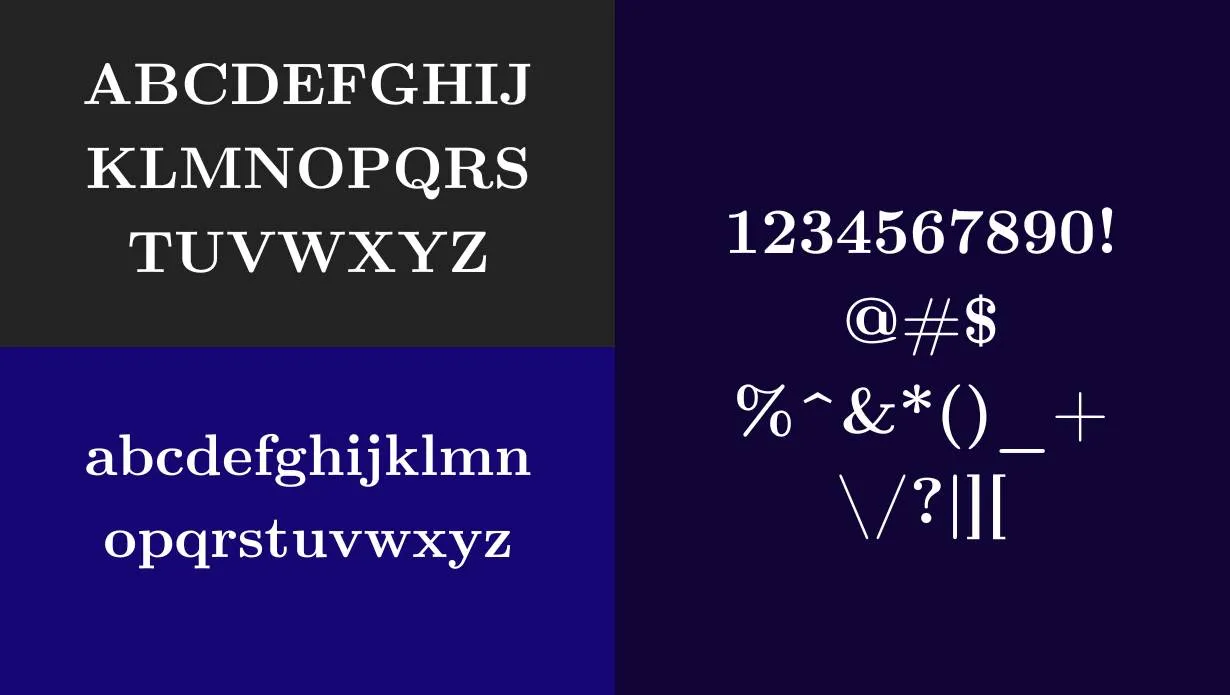
Cmu Serif Font is a classic and elegant typeface, often chosen for academic publications, formal documents, and editorial design.
With its well-balanced letterforms and traditional style, it conveys a sense of sophistication and tradition, making it a preferred choice for scholarly and professional applications.
| Name | Cmu Serif Font |
| Designer | Donald Knuth |
This typeface family truly excels, especially when combined with a decorative font like rotis sans serif font, thanks to its extensive support for various foreign languages.